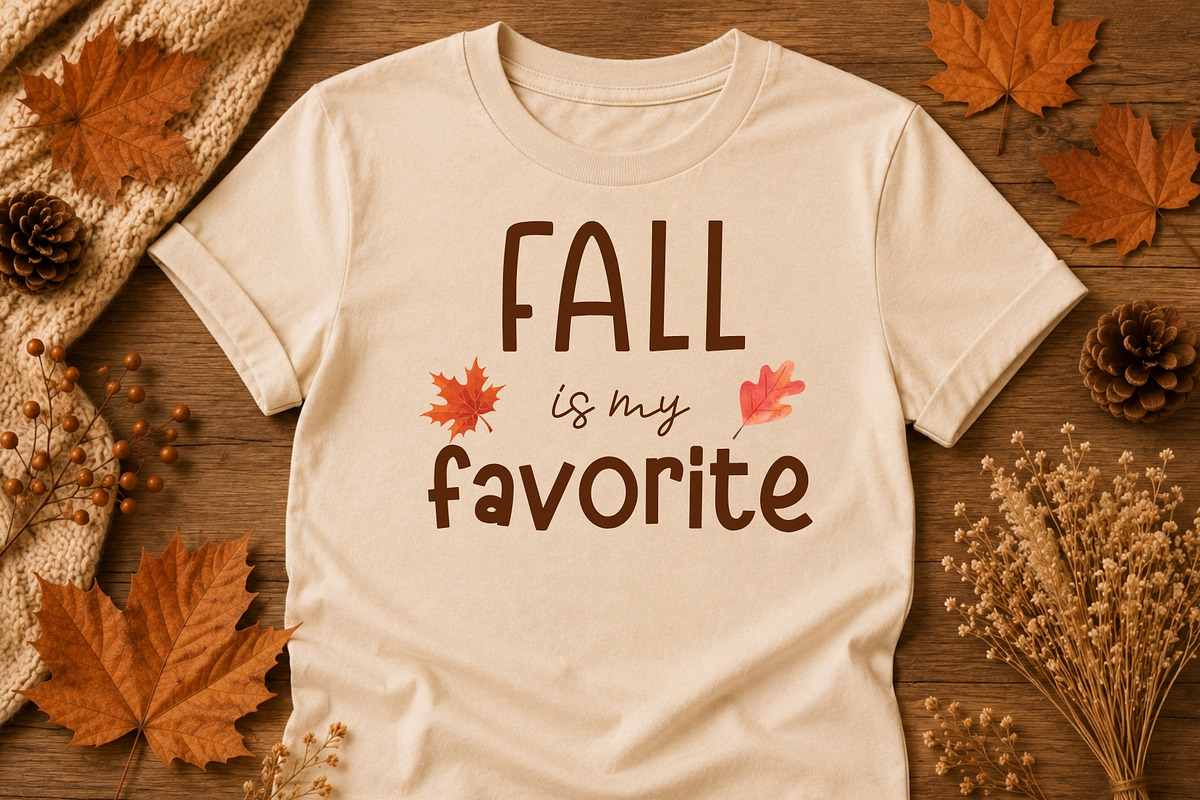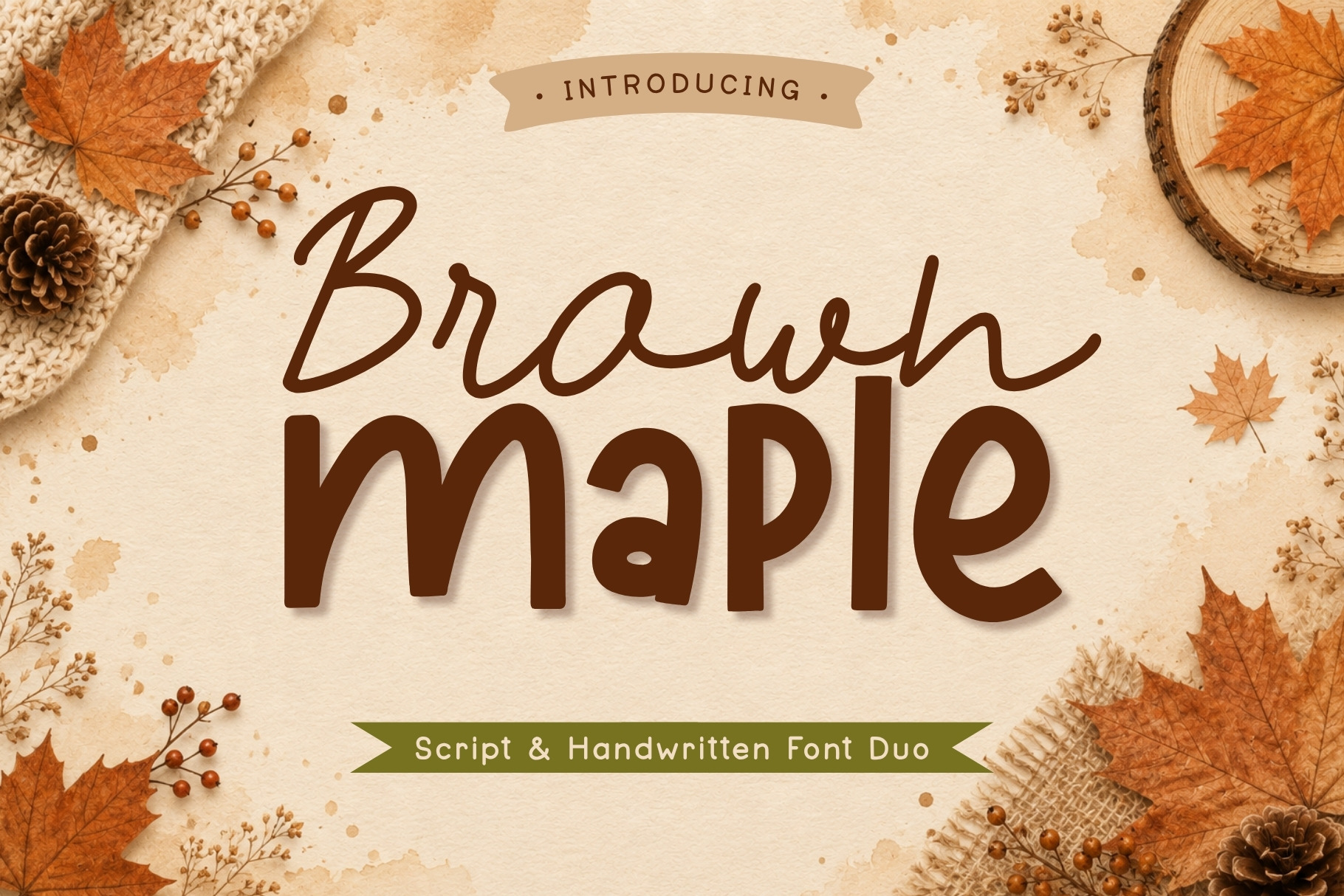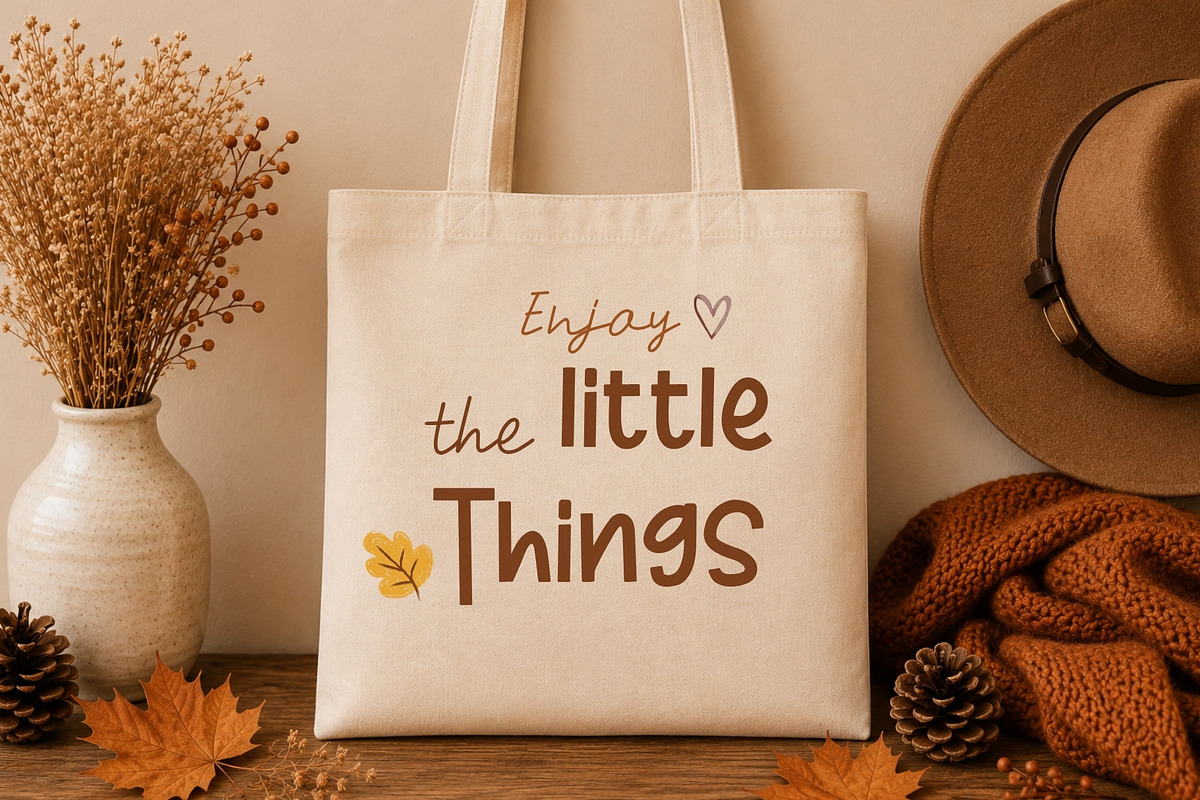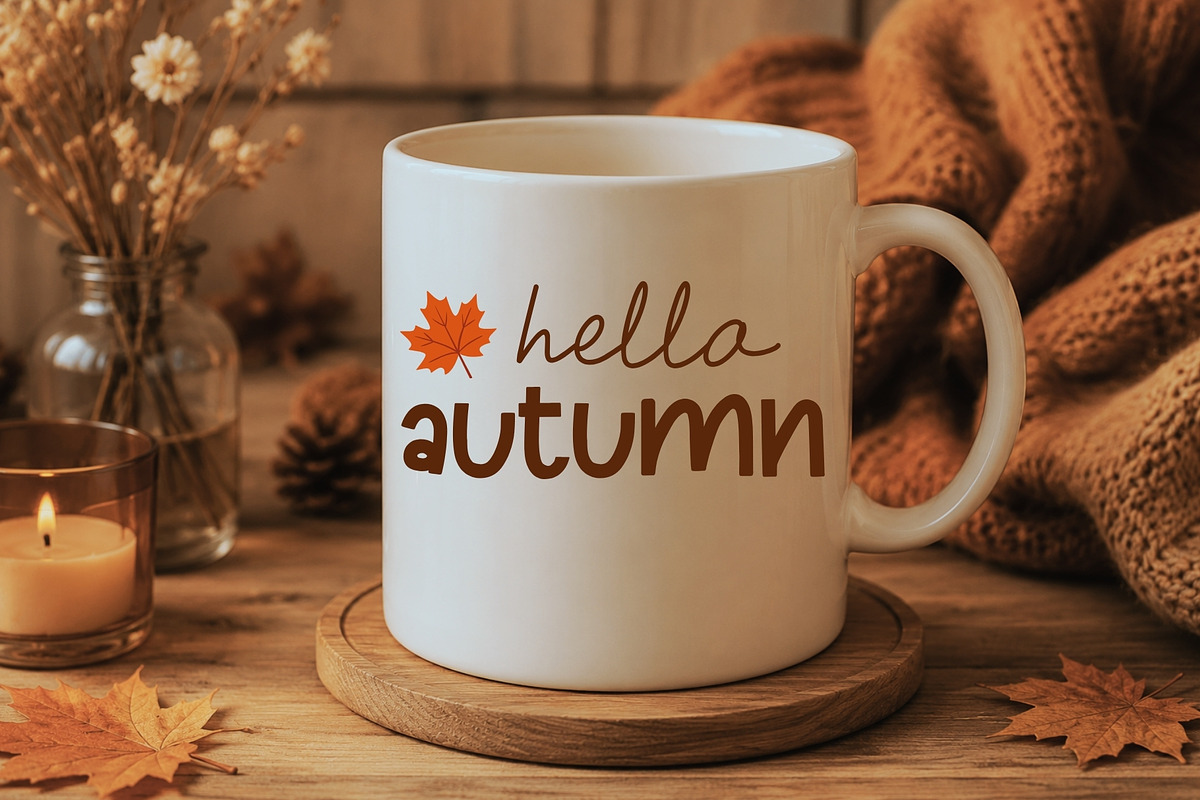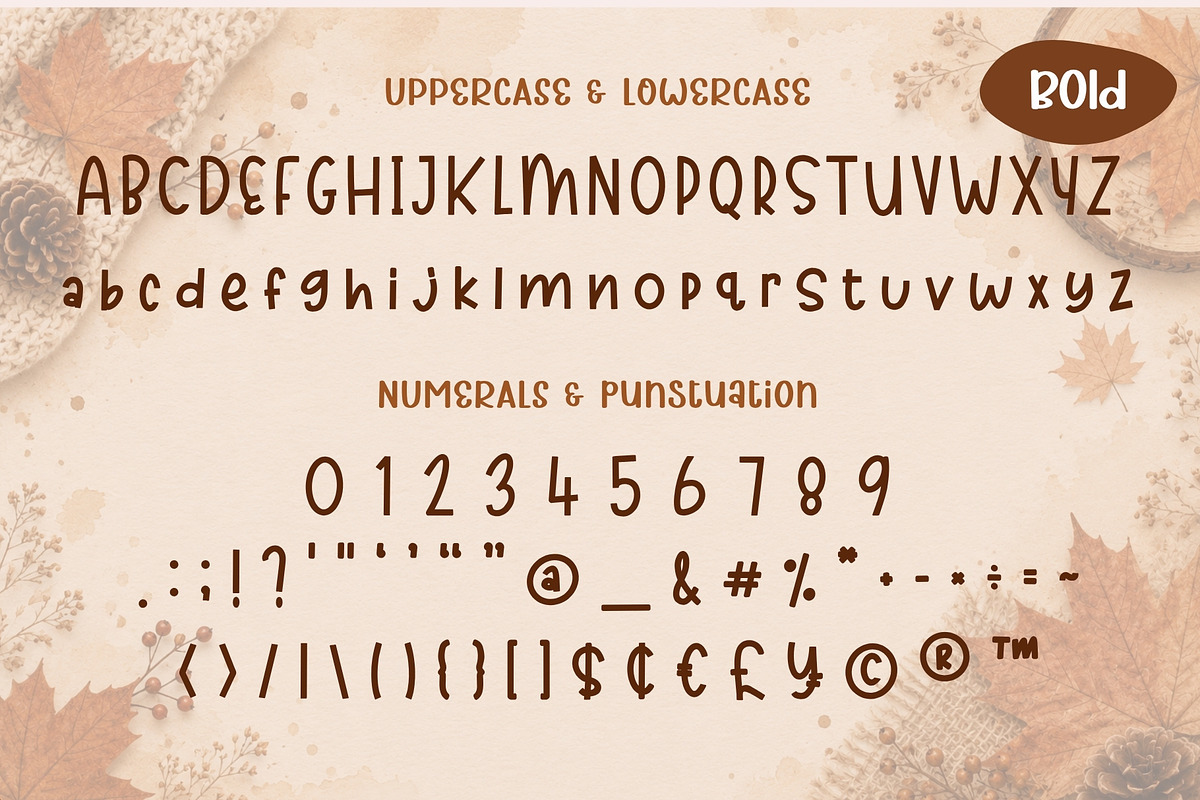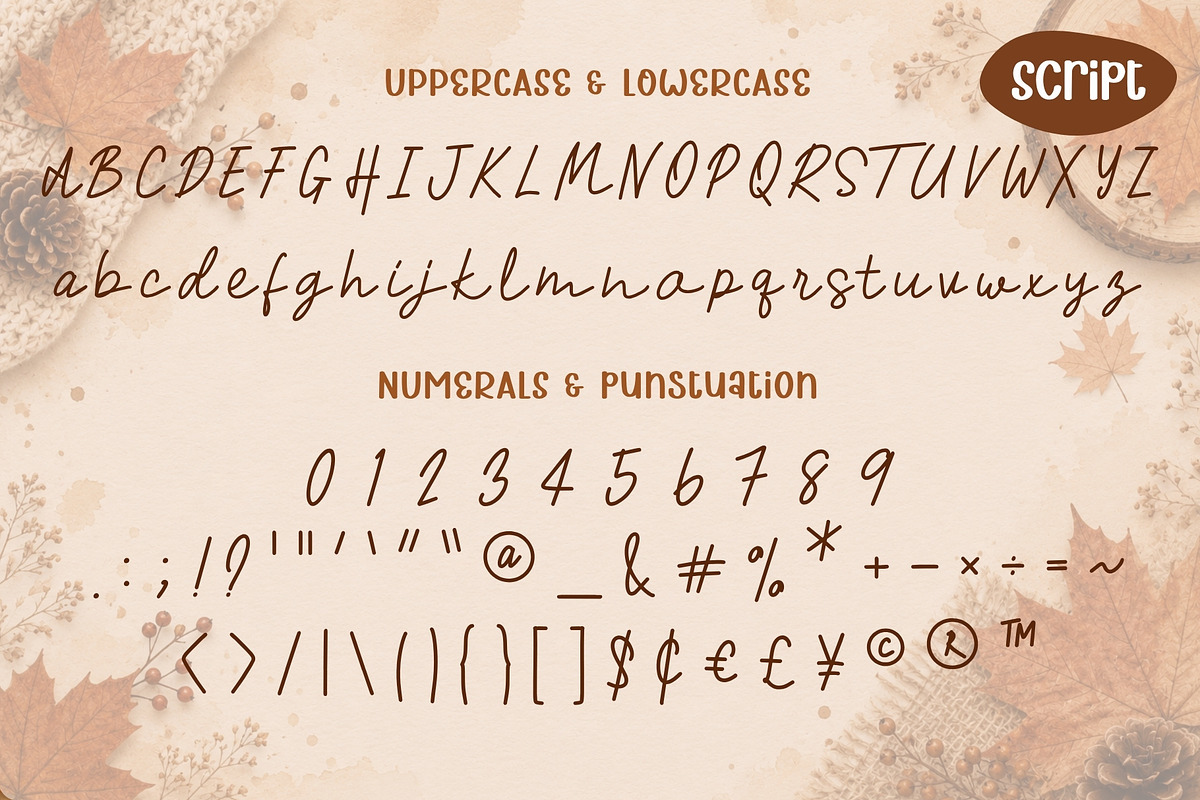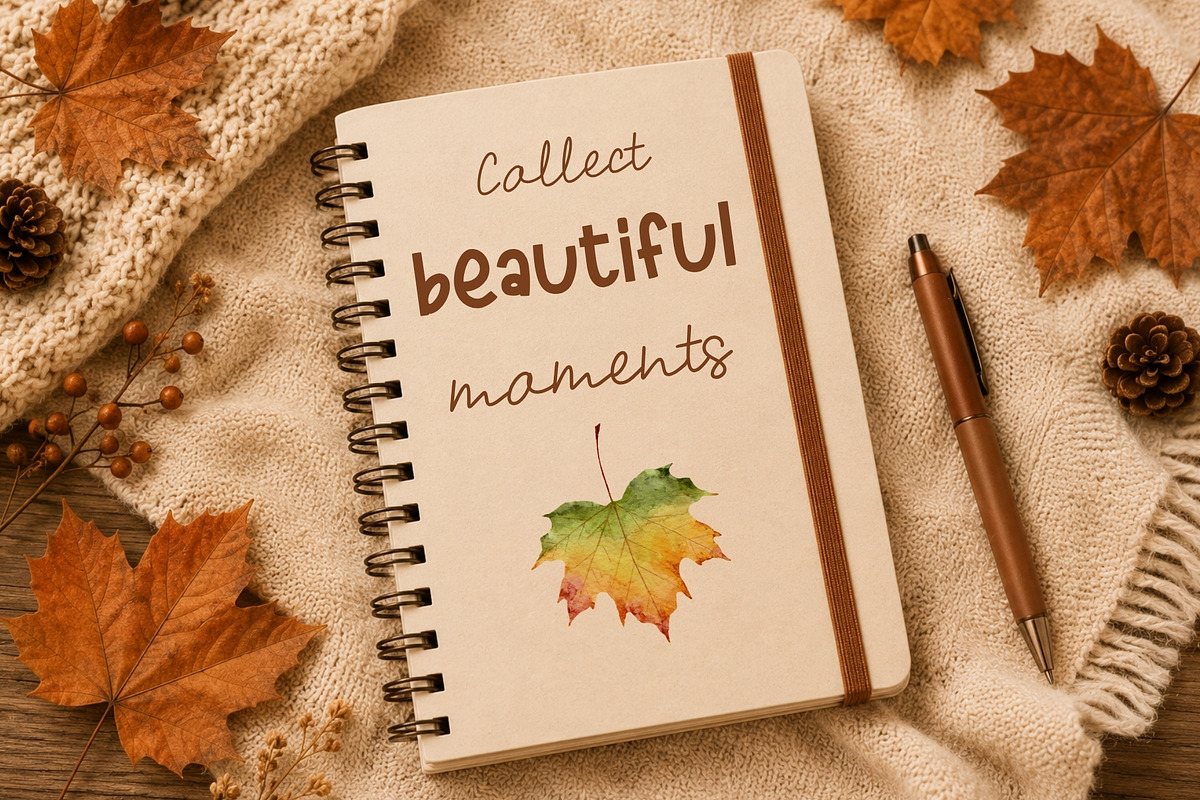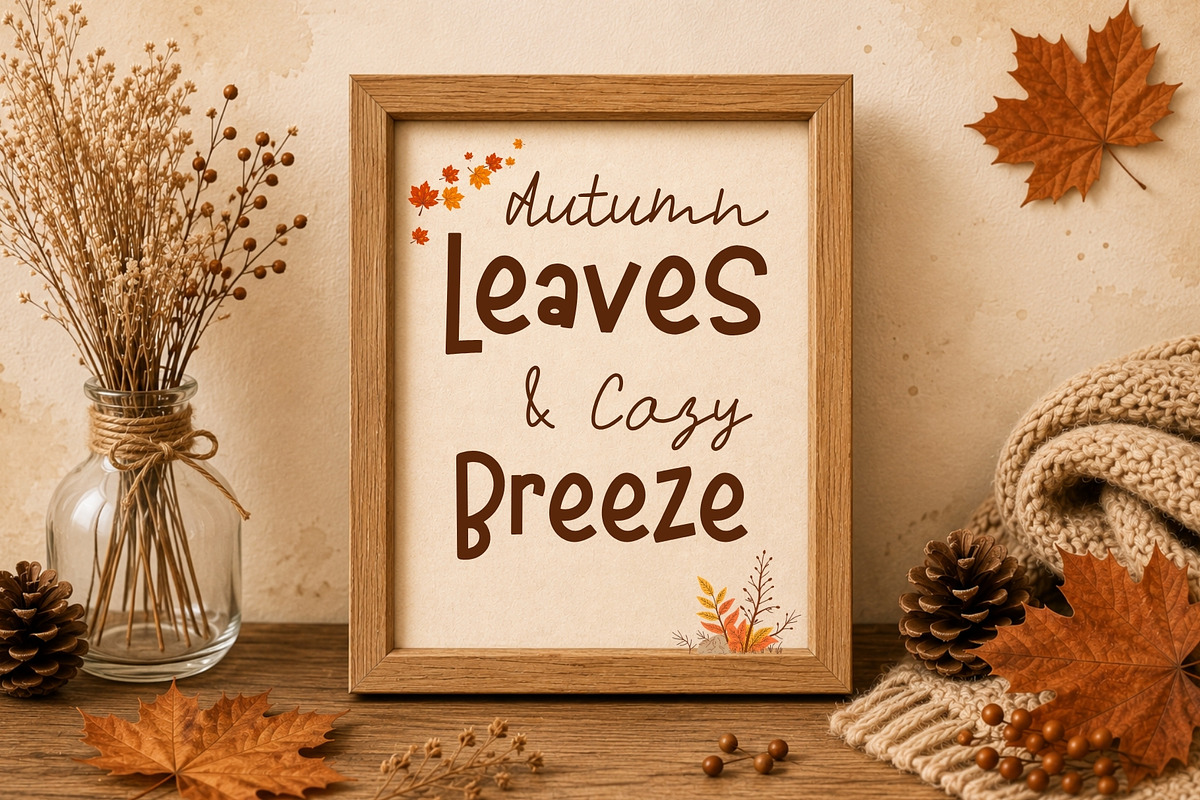
Brown Maple Font Duo
Brown Maple is a charming font duo combining a casual handwritten script with a playful bold display style.
The two fonts are designed to complement each other beautifully, making it easy to create balanced typography with personality. Use the flowing script for delicate accents and quotes, then pair it with the bold handwritten style for headlines and statement text.
With its cozy and approachable character, Brown Maple is especially suited to autumn and fall-themed projects, while remaining versatile enough for year-round designs.